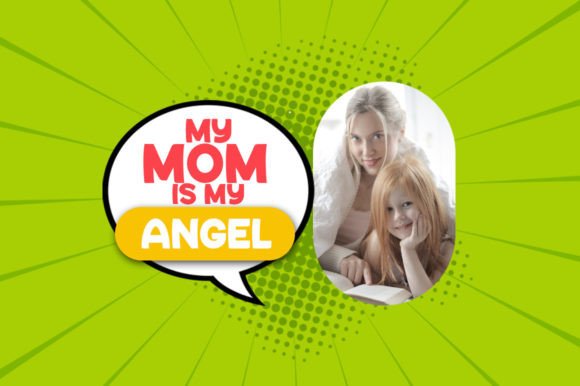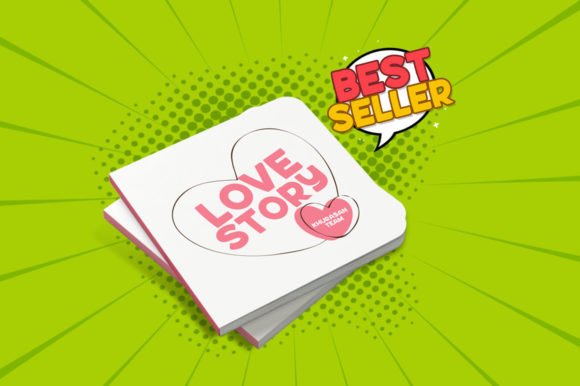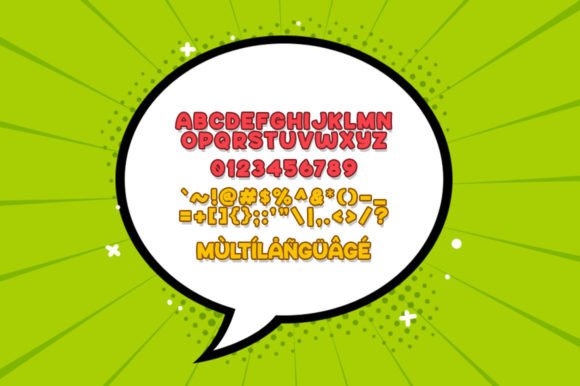
Introduction to Say Comic Font
Have you ever stumbled upon a font that just makes your design sparkle? That’s exactly what happened when I discovered Say Comic Font. I was working on a project and wanted to create a playful poster for a local comic book store, and this font was the perfect find. Its modern, clean, and stylish design instantly captured the essence of the project.
As a designer, I know how valuable it is to have high-quality design resources at our fingertips. Say Comic Font is one such treasure that can elevate your creative projects to the next level. With its transparent background and free download option, it’s an ideal design resource for designers looking to add a touch of playfulness to their work.
Key Features of Say Comic Font
- High-quality font design, ideal for creative projects requiring a fun and playful tone.
- Supports transparent background, allowing for seamless integration into various design elements.
- Perfect for comic book illustrations, graphic novels, and other creative projects requiring a bold and eye-catching font.
Honest Review: Say Comic Font
I recently came across Say Comic Font and I must say it’s an interesting addition to any designer’s toolkit. With a free download available, it’s a great resource for anyone looking to spice up their creative project.
- High quality design: The font itself is well-designed and visually appealing.
- Transparent background: This makes it easy to use as a background or overlay in design projects.
One thing I appreciate about Say Comic Font is its unique style. It’s perfect for designers looking to add a bit of personality to their work. Plus, it’s available for free download, making it a great resource for any design project.
- Limited font variations: Say Comic Font only comes in a few styles, which may not be ideal for designers who need a wider range of options.
- Not suitable for all projects: While great for some design projects, Say Comic Font may not be the best choice for more formal or professional work.
Overall, Say Comic Font is a solid addition to any designer’s toolkit. While it may not be perfect for every project, it’s a great resource for designers looking to add some personality to their work.
Say Comic Font is ideal for creative projects, such as social media graphics, posters, and flyers. Its high-quality design and free download make it a valuable design resource. Use it to add a fun and playful touch to your designs.
Alternatives to Say Comic Font
Comic Sans MS is a classic alternative to Say Comic Font. It’s a fun, playful font that works well for creative projects, especially those with a lighthearted or humorous tone. When to use: children’s books, greeting cards, and other designs that require a casual, approachable feel. Compared to Say Comic Font, Comic Sans MS is more traditional and widely recognized.
Pacifico is a modern, high-quality font that offers a more sophisticated alternative to Say Comic Font. Its elegant, cursive script makes it perfect for design projects that require a touch of sophistication, such as wedding invitations, menus, or branding materials. When to use: luxury brands, fine dining establishments, or any project that demands a high-end feel. Compared to Say Comic Font, Pacifico is more refined and suitable for formal designs.
Great Vibes is a free download font that offers a similar feel to Say Comic Font, but with a more modern twist. Its fun, energetic vibe makes it perfect for creative projects, such as posters, social media graphics, or advertising materials. When to use: events, promotions, or any design that requires a lively, engaging atmosphere. Compared to Say Comic Font, Great Vibes is more versatile and suitable for a wide range of design applications.